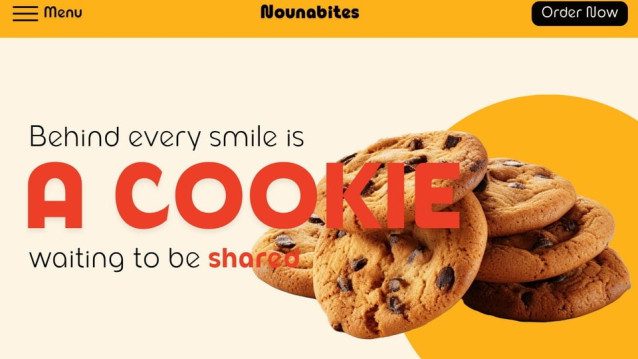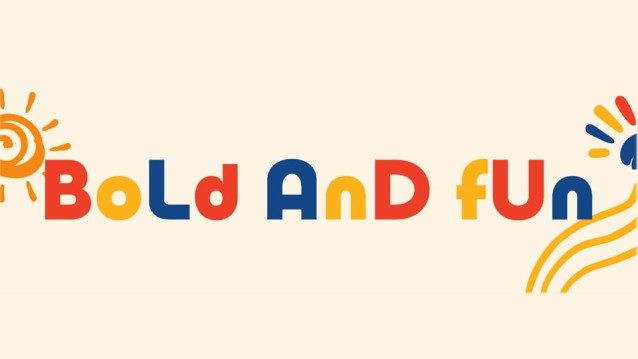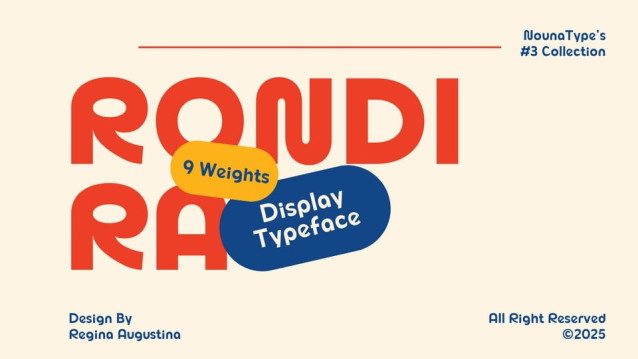
Rondira Font
Rondira Font This font family was created to bring joy, character, and bold style to your designs. It’s versatile, playful, and ready for any-thing from posters to digital graphics.